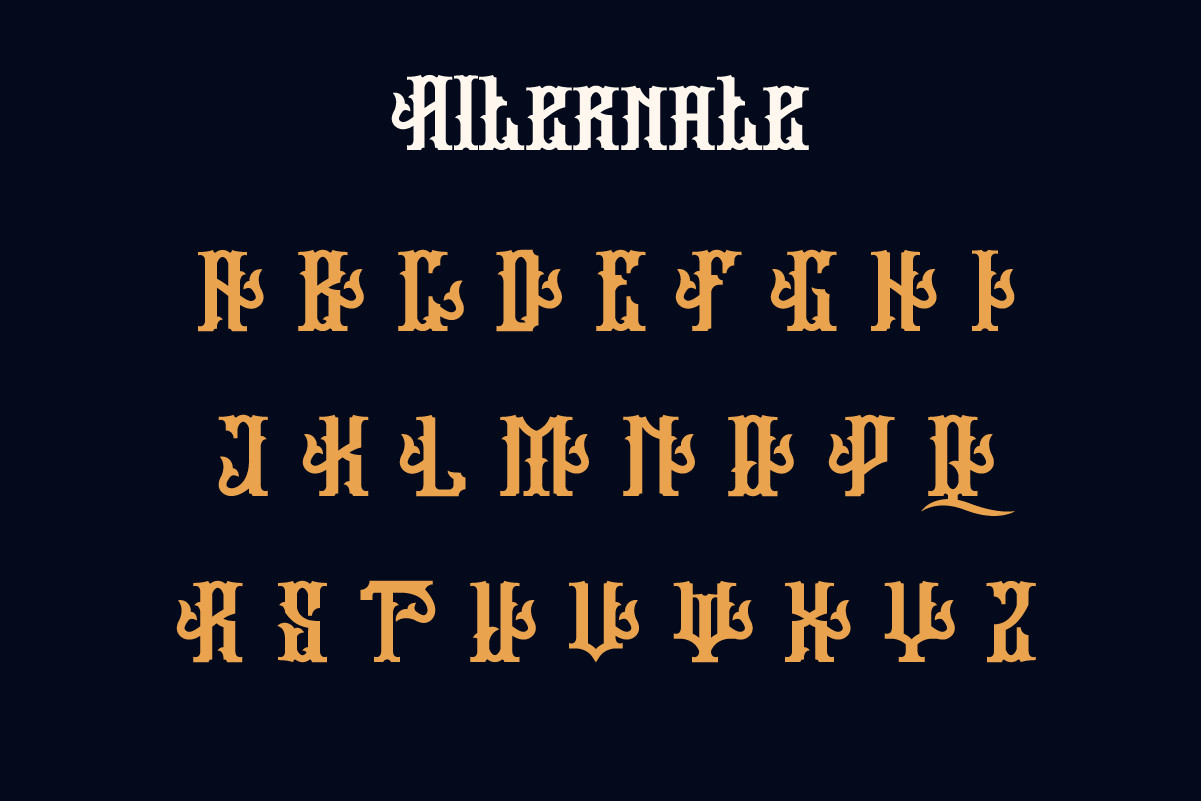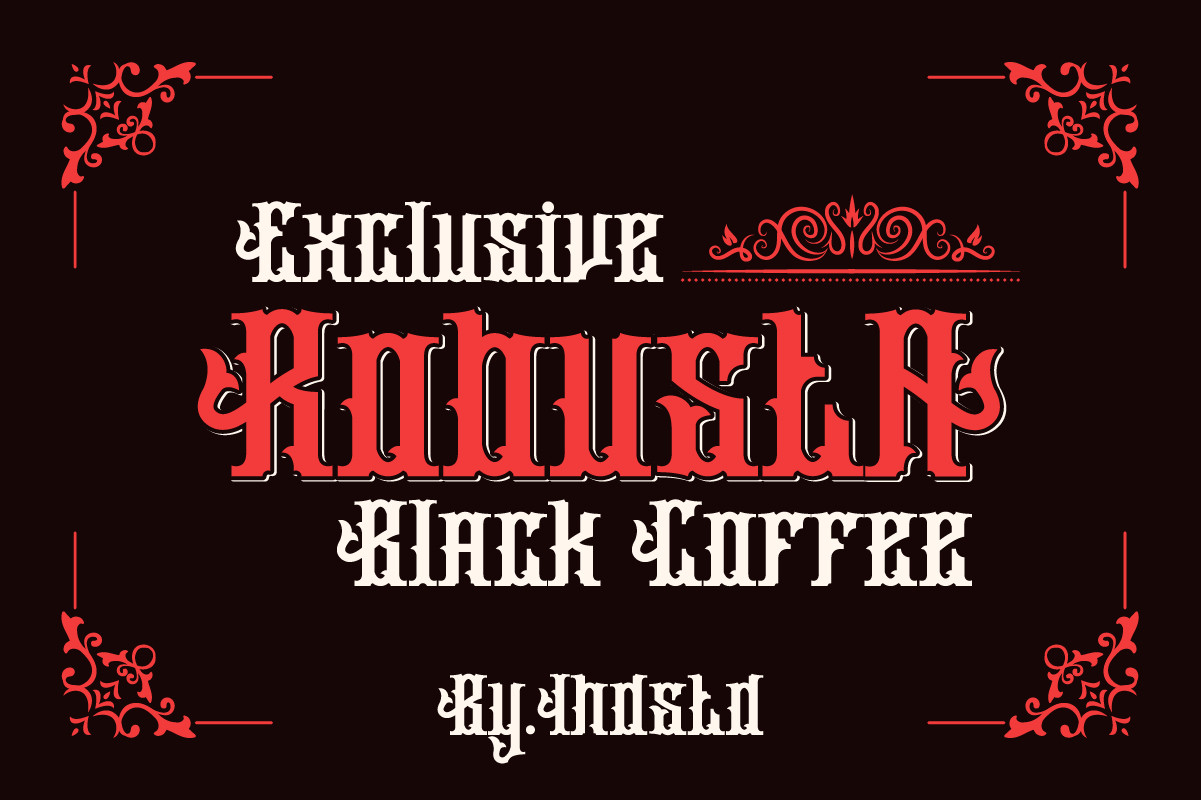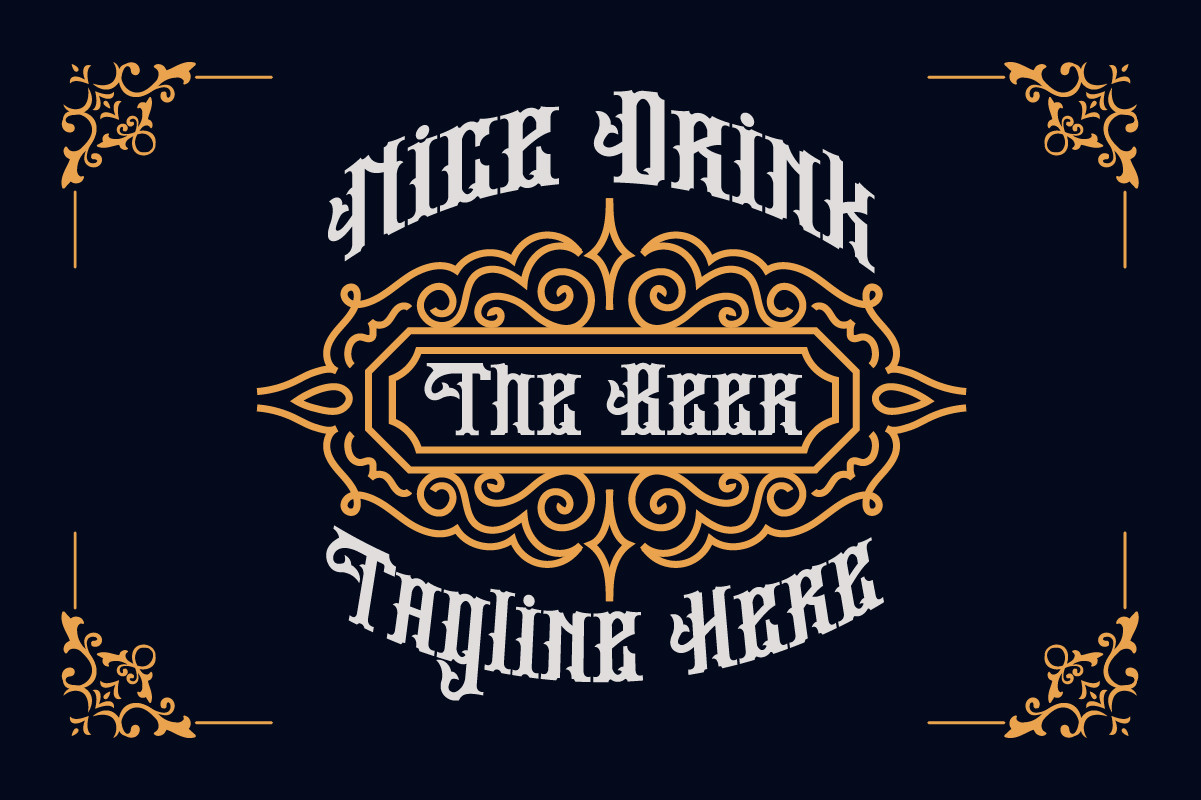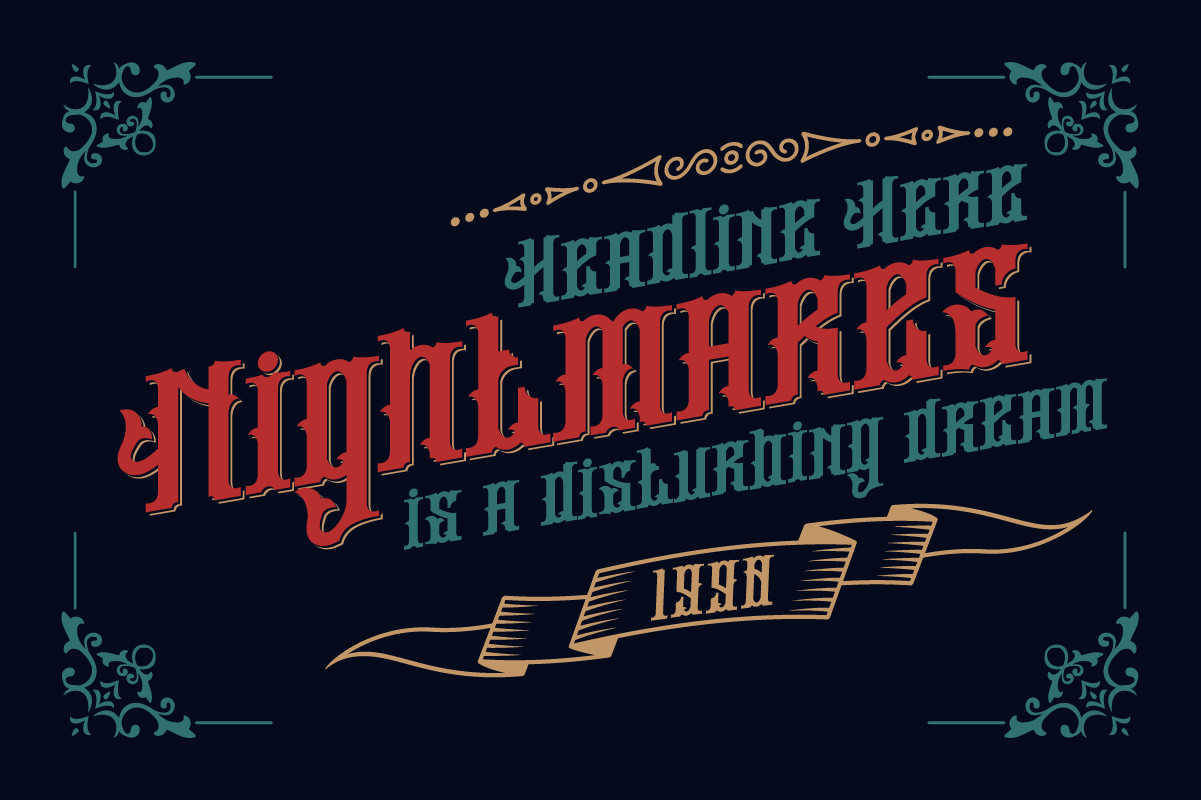
About Almiqdam Font
Almiqdam is a highly detailed, distinct and assertive blackletter font. Fall for its ravishing style and use it to create gorgeous designs. This font is PUA encoded which means you can access all glyphs and swashes with ease!